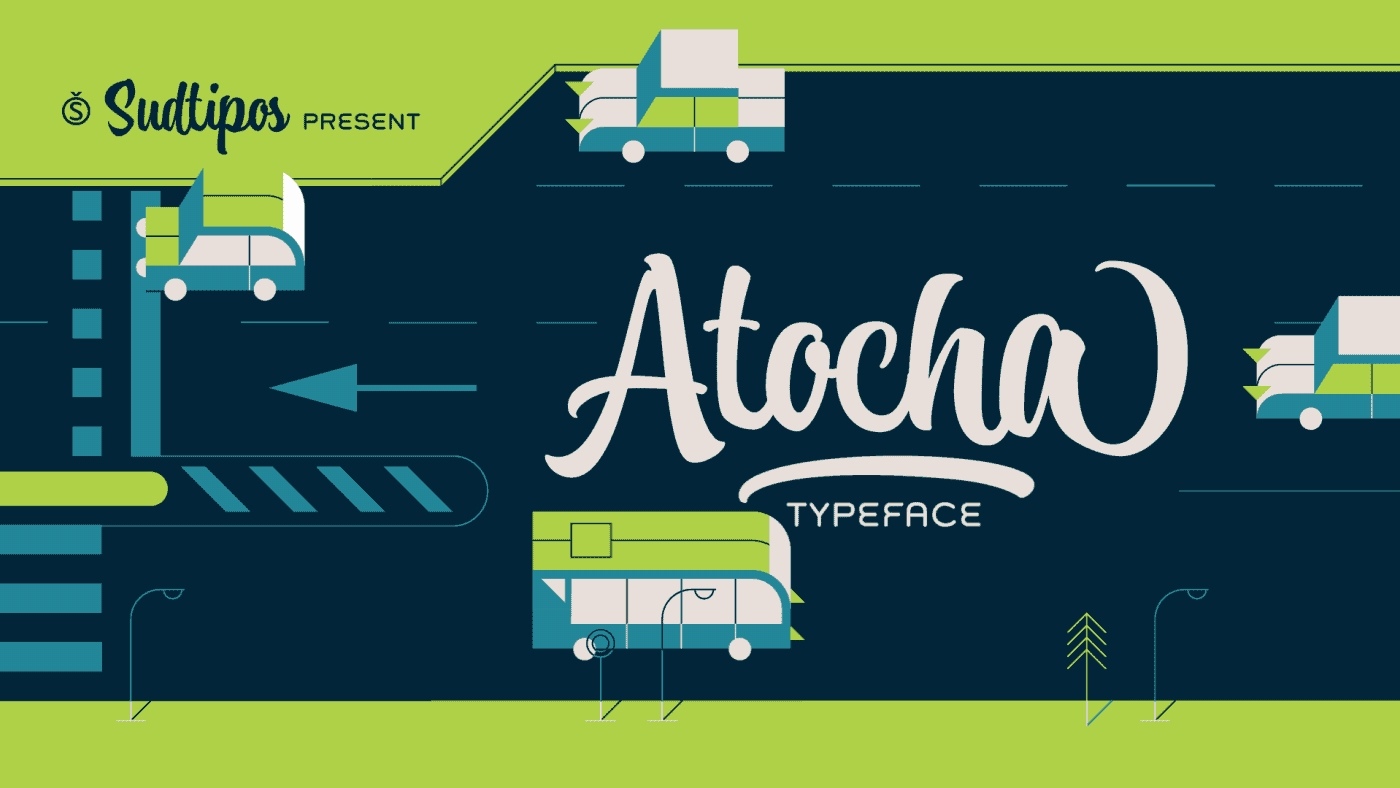
Atocha Font
Atocha Font is perfect for Spanish cultural branding, travel and tourism campaigns, heritage museum materials, traditional restaurant menus, architectural presentations, cultural event signage, artisanal product packaging, historical publications, and Mediterranean lifestyle branding.
What makes Atocha Font exciting is its authentic character that beautifully captures the essence of Spanish heritage and Mediterranean warmth through carefully crafted letterforms that honor traditional typography while embracing contemporary functionality. The font features elegant proportions with subtle cultural nuances that evoke the timeless beauty of Spanish architecture and artistic traditions. Its sophisticated design reflects the rich history and vibrant culture of Spain, making it perfect for brands that want to communicate authenticity, cultural depth, and the passionate spirit of Mediterranean living.
Atocha Font family includes various weights such as Light, Regular, Medium, and Bold variations, often featuring traditional stylistic alternates and culturally-inspired decorative elements. The family may include Spanish-specific character sets, heritage-themed symbols, and Mediterranean ornamental features that enhance the font's cultural authenticity, providing designers with comprehensive options for creating meaningful brand identities that celebrate Spanish heritage and Mediterranean aesthetics.